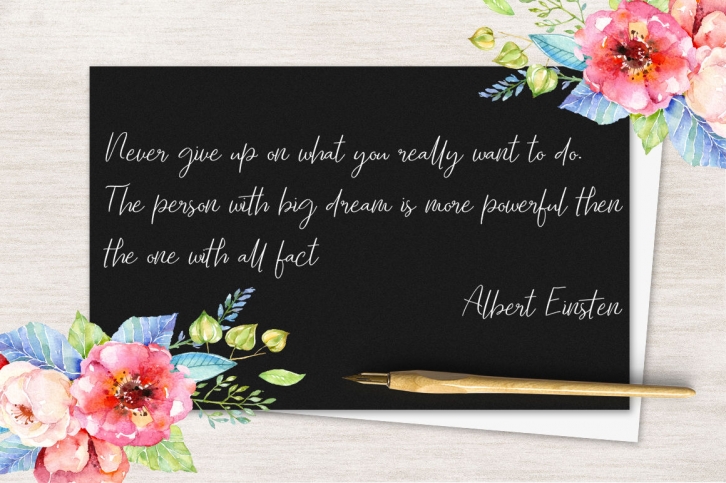
TALLENTED script font including uppercase,many variant ligatures, and lowercase alternates. you need a program that supports OpenType features such as Adobe Illustrator CS, Adobe Photoshop CC, Adobe Indesign and Corel Draw X6/X7. and you can also access the alternate glyph via Font Book (Mac user) or Windows Character Map (Windows user). and support international language. if you have any questions, please message me @ , I'm here to help :) Enjoy using!